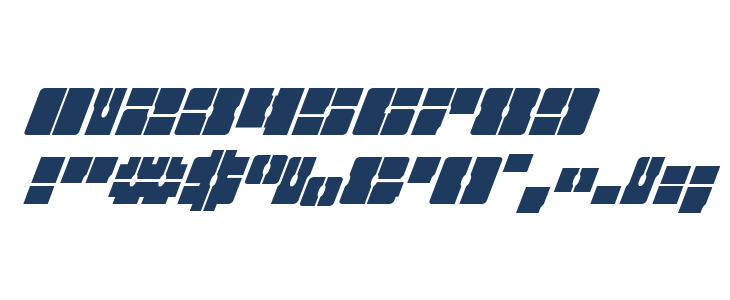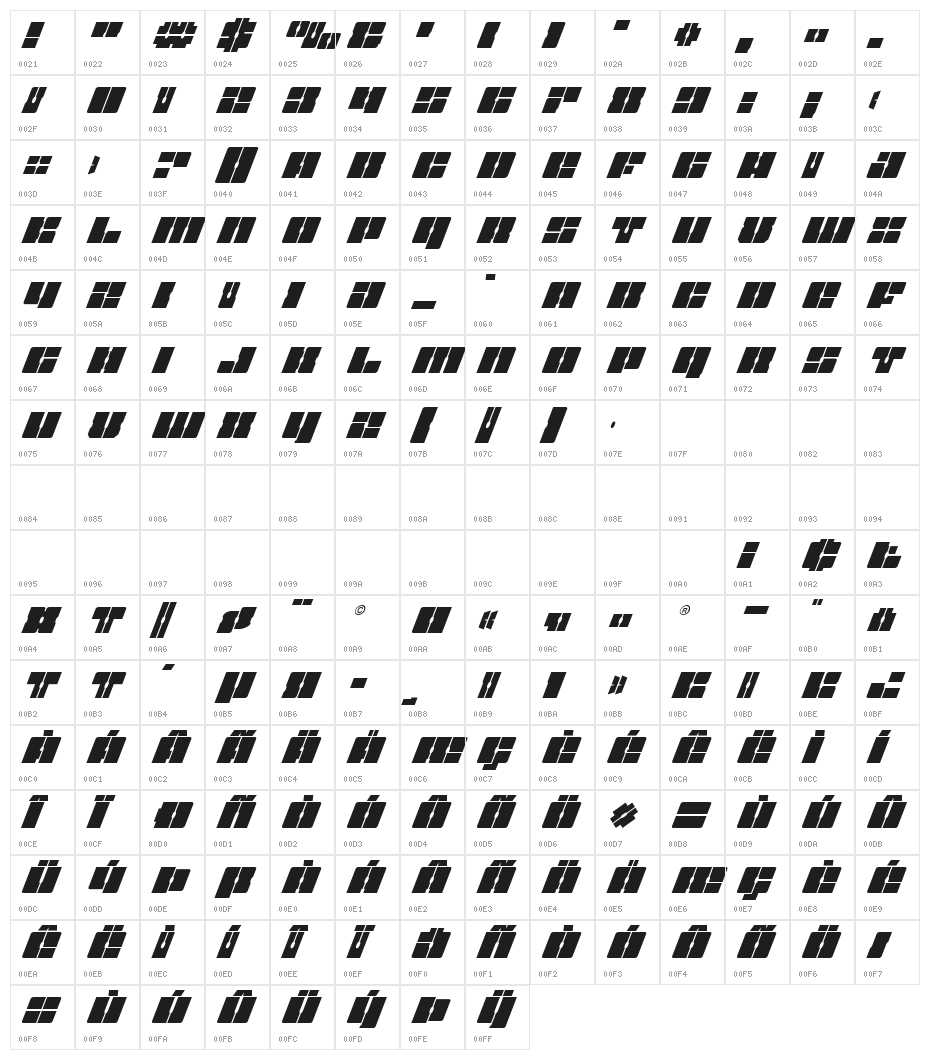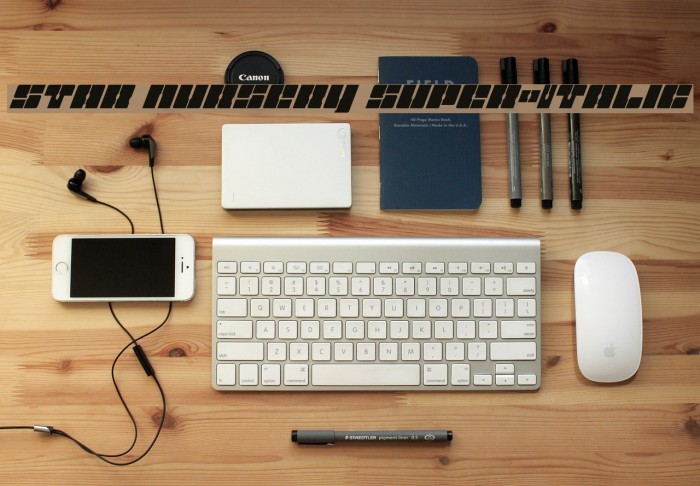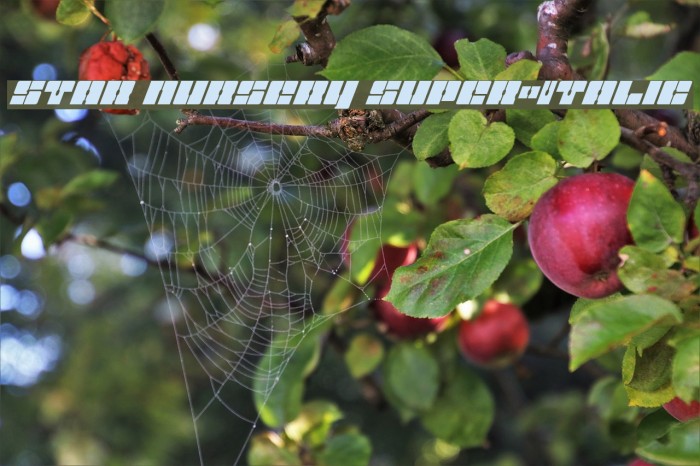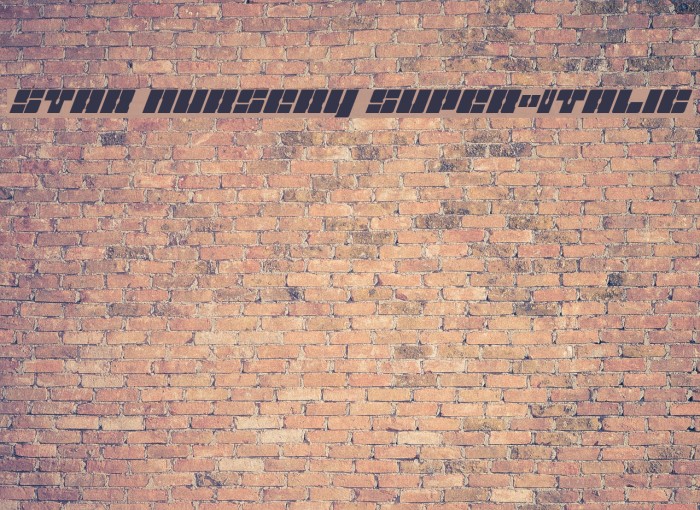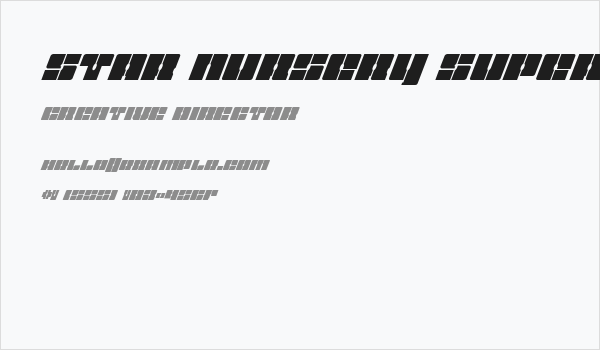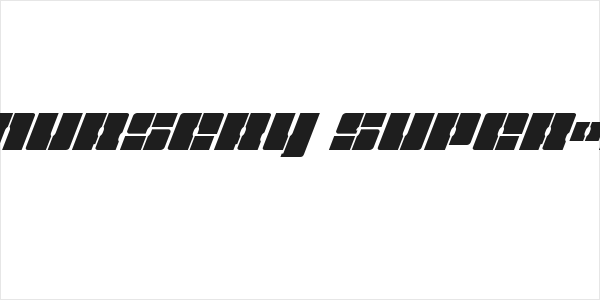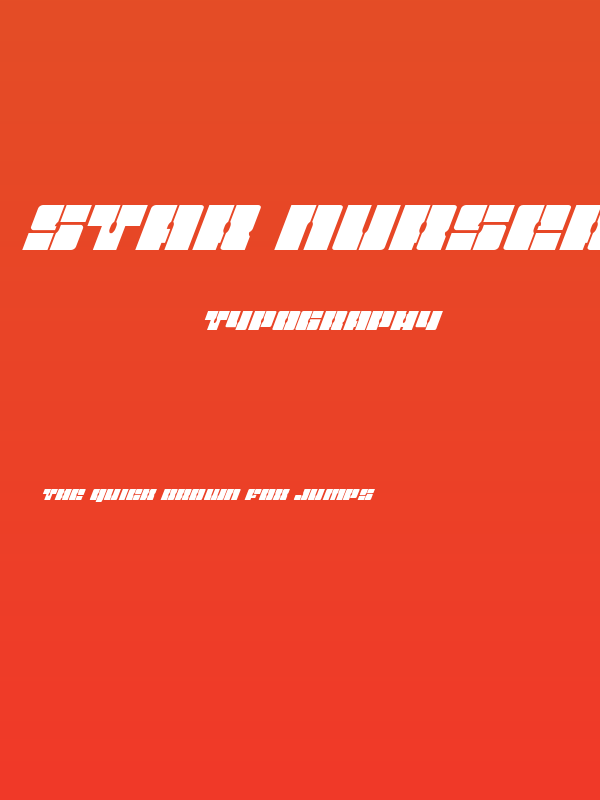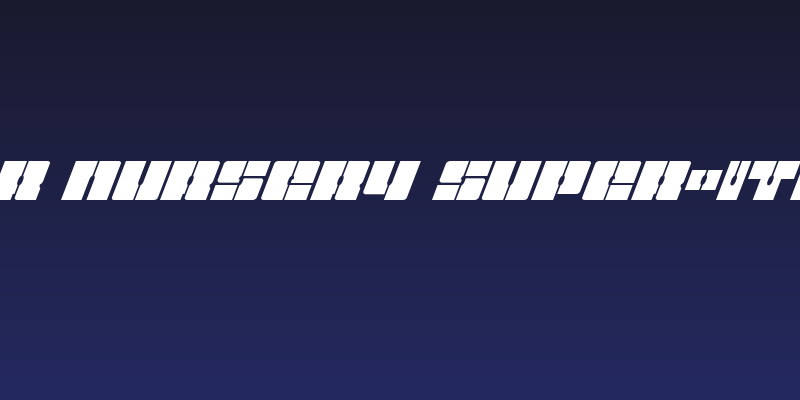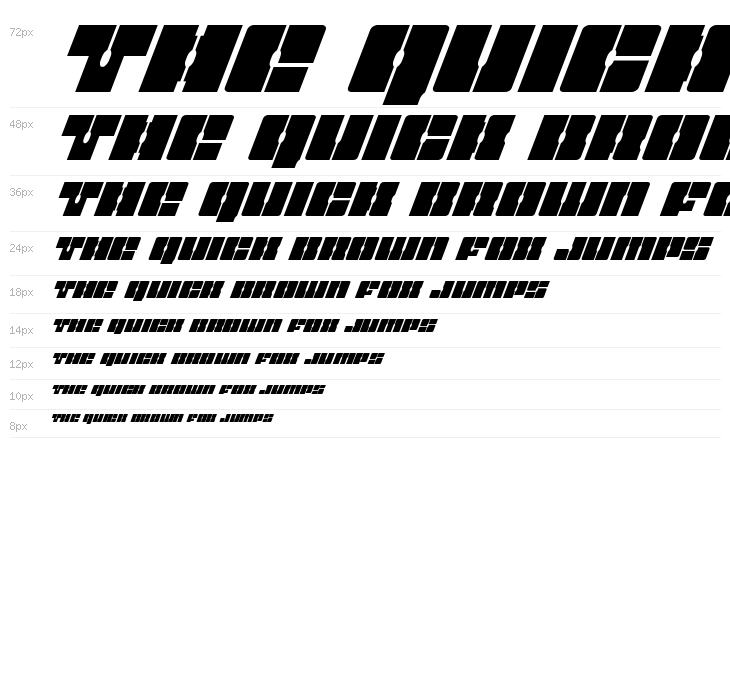
Star Nursery Super-Italic Font
Star Nursery Super-Italic Description
This font features a bold, italicized style with a futuristic and dynamic appearance. The characters are heavily slanted, creating a sense of motion and speed. Each letter is constructed with thick, block-like strokes, giving it a robust and impactful presence. The angular design and sharp edges contribute to its modern and edgy aesthetic. The font maintains consistent thickness throughout, with minimal contrast between strokes. Its unique style makes it stand out, ideal for projects that require a strong visual impact.
| Proposed Projects | Ideal for sci-fi themed designs, video game titles, posters, and branding that requires a modern and impactful look. |